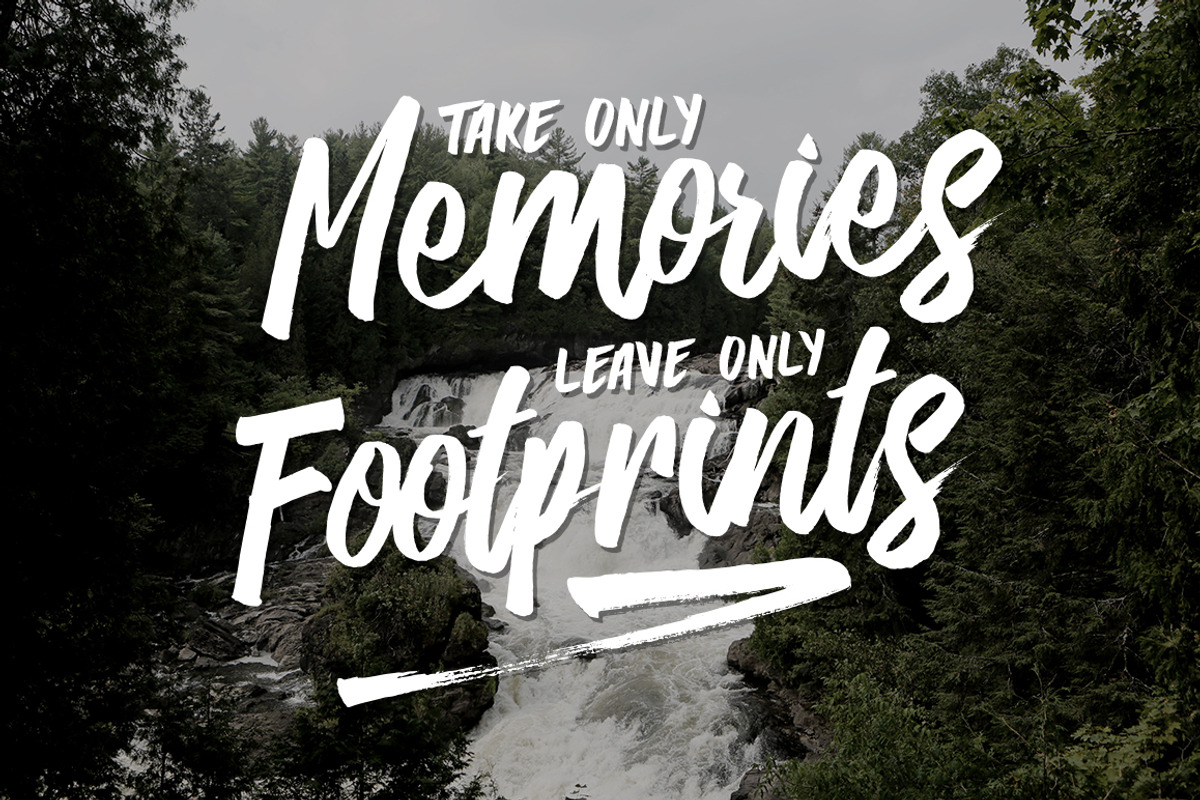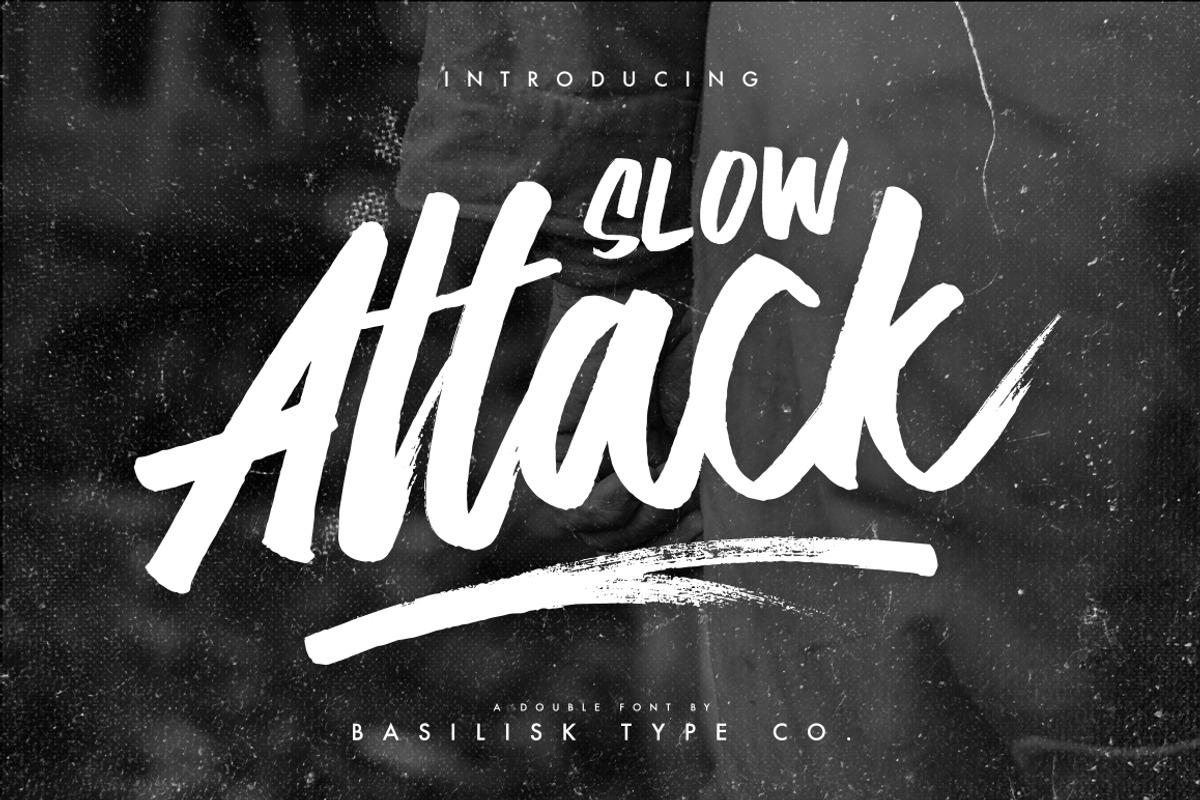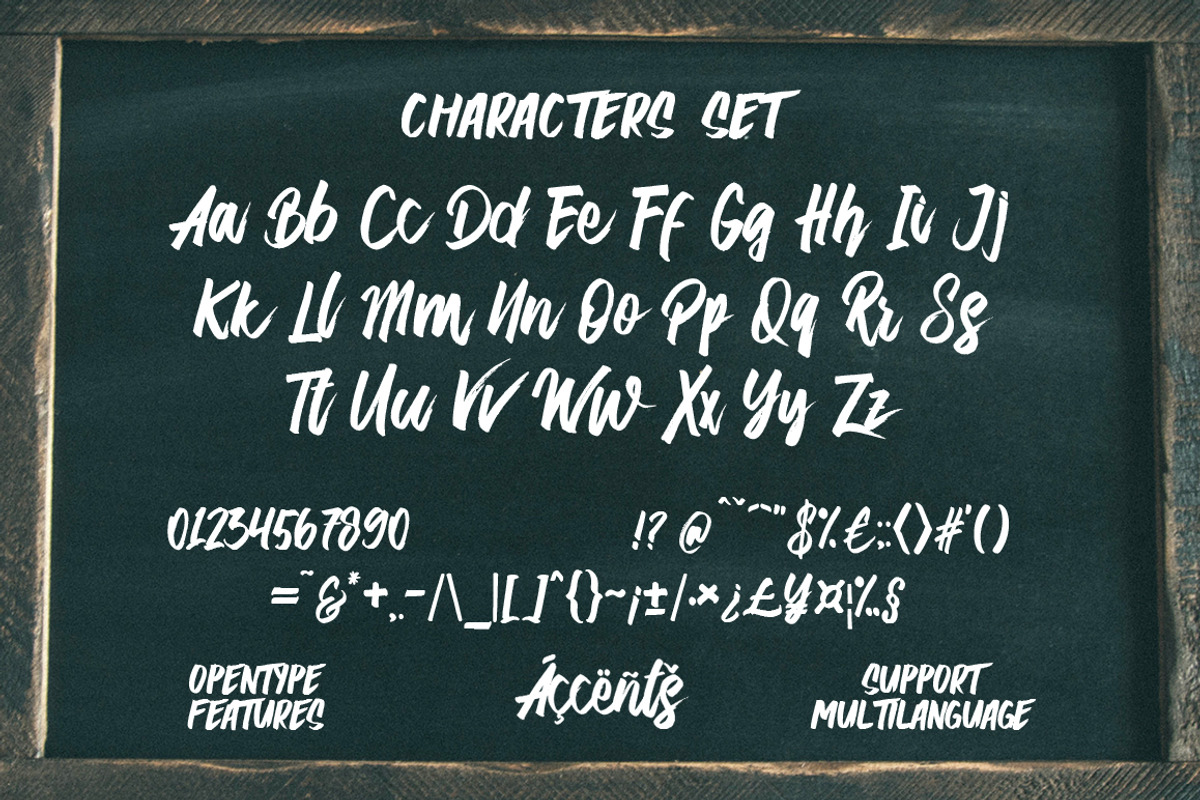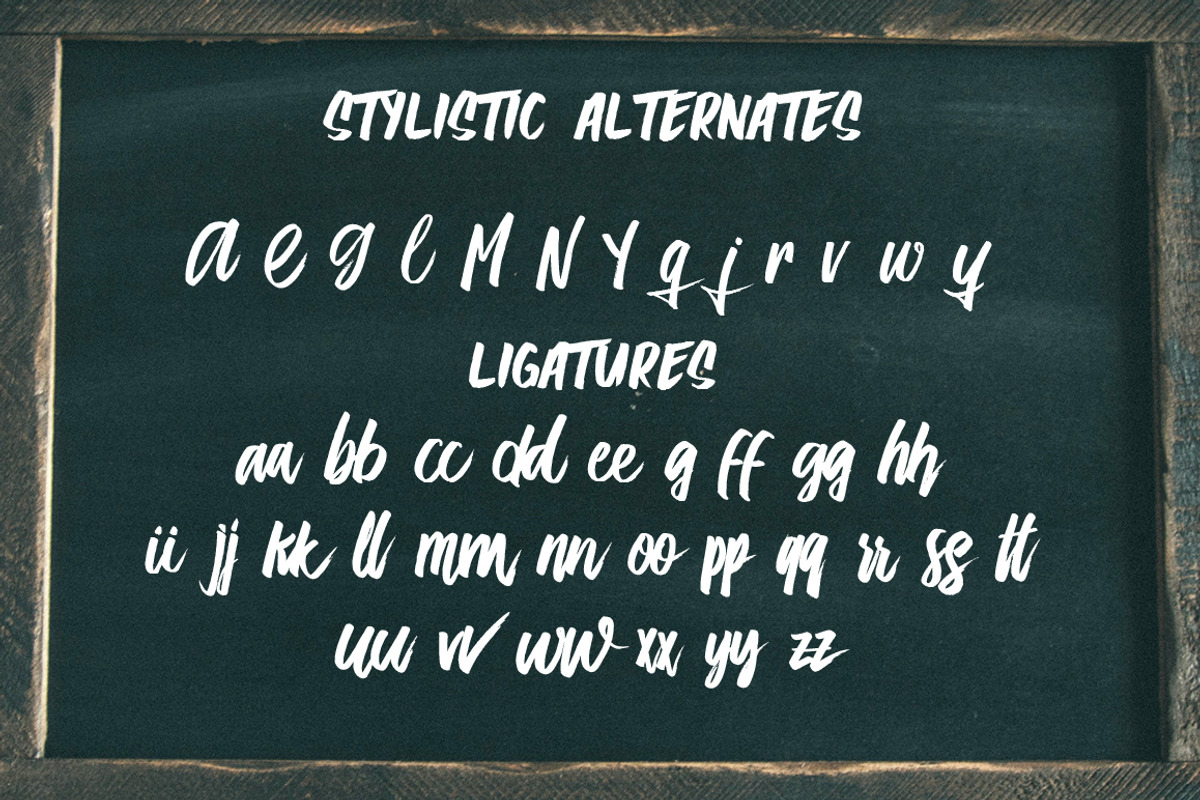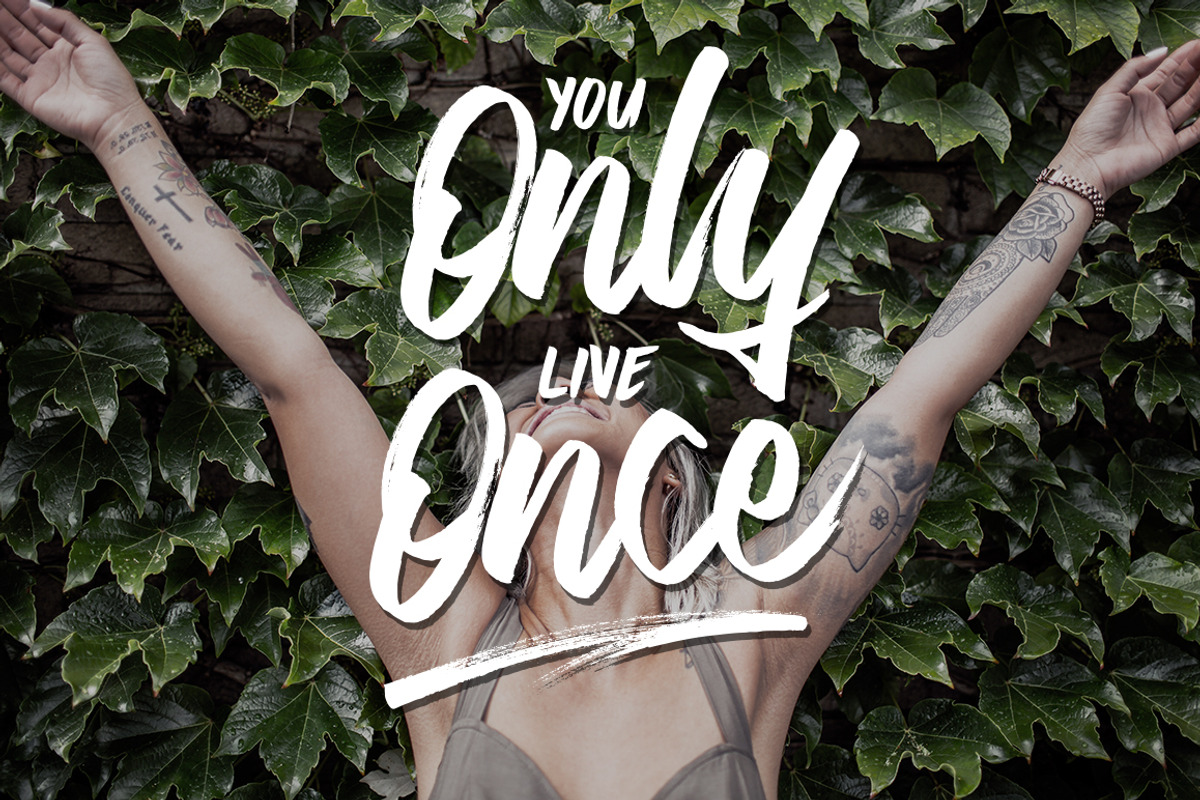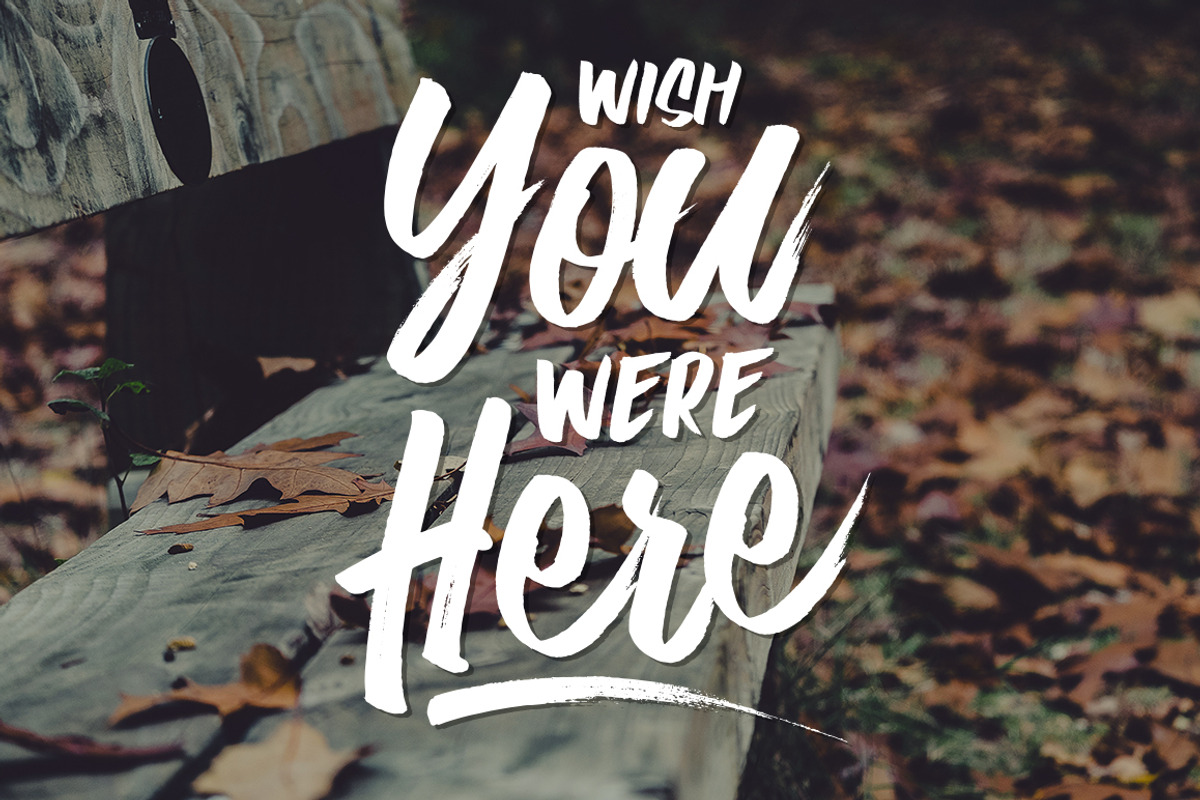
Slow Attack - Double Fonts
Slow Attack - Double Fonts by Basilisk Type is a font selected for branding, posters, packaging, typography.
- CONTENTS Slow Attack font, Comes with an Uppercase, Lowercase, Numbers, Puncts, and Multilingual Support, And of course Stylistic Alternates
Why Slow Attack - Double Fonts is worth a look
Slow Attack - Double Fonts by Basilisk Type fits naturally into Branding, posters, packaging, typography.